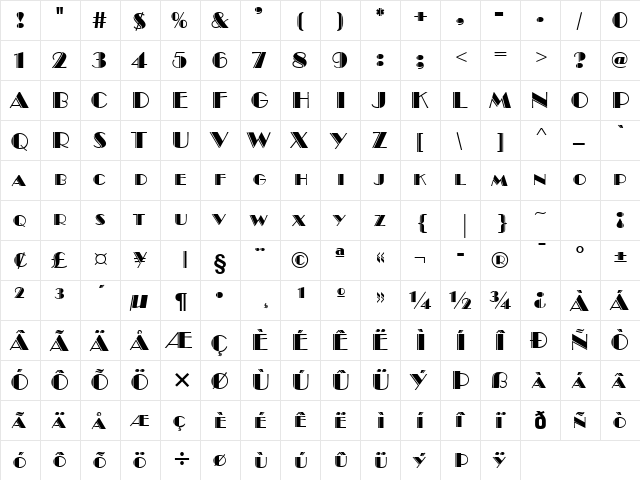
Brando Engraved Bold
Design Context for Brando Engraved Typeface
Brando Engraved brings ornamental detail and strong personality to headlines and identities, where visual impact matters more than quiet functionality. Its bold stroke weight gives it real presence on the page.
Font Pairing: Pair with a clean neutral sans-serif for body copy to let Brando Engraved's character lead without overwhelming the composition.
Pro Tip: Use Brando Engraved exclusively at display sizes — it was designed to be seen, not read at length. Let a neutral companion handle body copy.